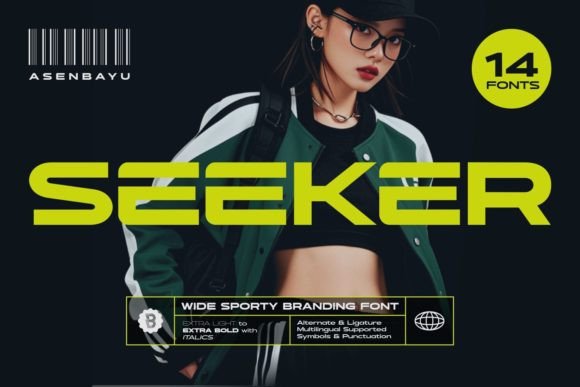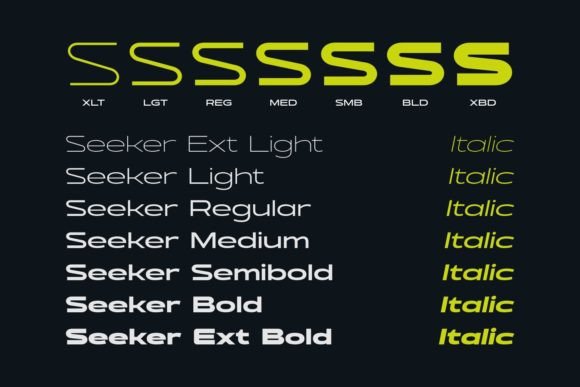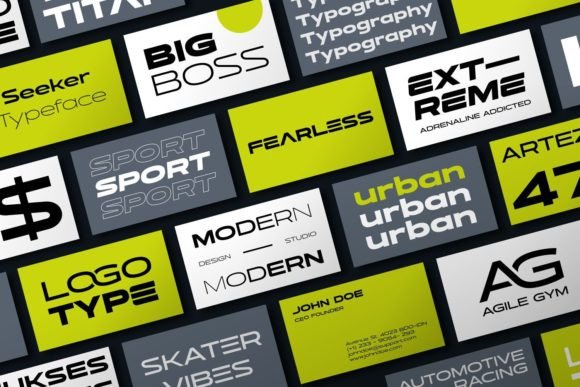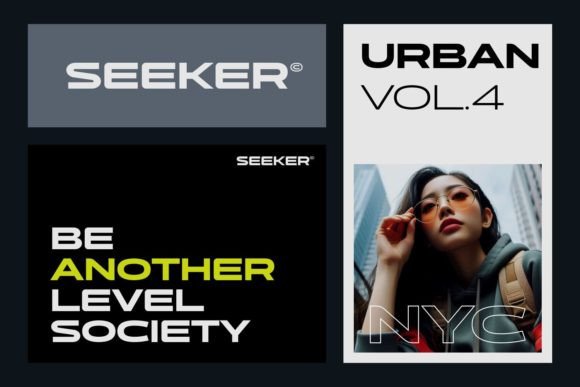
Seeker Font: A Bold Modern Sans Serif for Sporty Branding & Logo Design
About the Seeker Font
Add a touch of class to your work with the Seeker Font, a truly exceptional typeface. Seeker is a wide modern sporty branding font family, an energetic typeface that captures the essence of athleticism and urban style. This font is designed to convey a sense of movement, strength, and contemporary style, making it ideal for sports brands, sportswear, and fitness-related products. This font is suitable for trendy packaging label designs, unique desired logos, poster designs, fashion and many more.
Seeker Font Usage Examples
Seeker Font Example